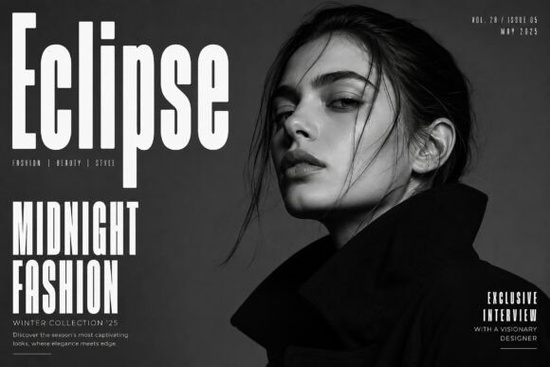
Eclipse Font is a standout choice for anyone looking to add a modern, bold touch to their design projects. This condensed display font is ideal for creating eye-catching headlines, logos, and visual elements that demand attention. Its clean geometry and tall letterforms make it perfect for fashion branding, editorial layouts, and luxury packaging. Whether you're working on a magazine cover, social media graphic, or merchandise design, Eclipse brings a sleek and confident aesthetic to your work.
Designed with contemporary editorial and luxury branding in mind, Eclipse maintains excellent readability even at large sizes. Its versatility makes it a go-to option for designers across various industries. From streetwear branding to premium packaging, this font offers a modern editorial style that stands out without sacrificing clarity.
What Makes Eclipse Font Unique?
Eclipse Font distinguishes itself through its bold, condensed structure. The font features uppercase and lowercase letters, numbers, and punctuation, making it suitable for a wide range of applications. Its clean design ensures that it works well in both digital and print formats. Whether you're designing for a website headline or a poster, Eclipse provides a sophisticated look that’s easy to use.
The font also supports multilingual content, which is a valuable feature for global projects. It’s PUA encoded, meaning you can access all the characters without needing special software. This makes it a practical choice for designers who work with multiple languages or need a reliable font for international clients.
Best Uses for Eclipse Font
Eclipse Font shines in projects that require a strong visual impact. It's particularly well-suited for:
- Fashion branding and luxury logos
- Editorial and magazine design
- Posters, flyers, and streetwear branding
- Merchandise and packaging designs
- Social media graphics and website headlines
Its modern aesthetic pairs well with other design elements, allowing you to create cohesive and professional-looking layouts. Whether you’re a small business owner, a print-on-demand seller, or a creative hobbyist, Eclipse offers a versatile solution for your design needs.
How to Use Eclipse Font Effectively
To get the most out of Eclipse Font, consider pairing it with complementary typefaces. For example, using it as a headline font alongside a simpler sans-serif or serif font can create a balanced and visually appealing design. Keep your layout clean and focused, especially when using the font for large text elements like headlines or logos.
When working with Eclipse, pay attention to spacing and alignment. Since it’s a condensed font, it may require slight adjustments to ensure it looks polished and professional. Testing different sizes and weights can help you find the best fit for your project.
Whether you're a designer, craftsperson, or small business owner, Eclipse Font provides a powerful tool for creating stylish and professional designs. With its clean structure and modern appeal, it’s an excellent choice for a variety of projects. Try it out and see how it can elevate your next creative endeavor.
Before finalizing your design, make sure to test Eclipse Font in different contexts. Check how it looks at various sizes and with different background colors. This will help you ensure that it meets your project’s requirements and delivers the desired visual impact.